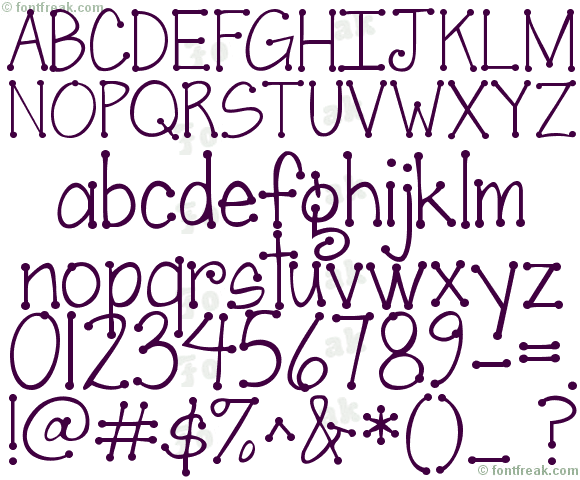
Janda Scrapgirl Dots is a whimsical, handwritten font created by Kimberly Geswein, classified as a decorative style. This unique typeface features playful dot elements that add a touch of fun and creativity to any design project. The strokes are uneven, contributing to its hand-drawn appearance, and the overall weight is light, allowing for easy readability without losing its artistic flair. The spacing between letters is generous, which enhances its legibility and gives it an airy feel, making it suitable for various applications.
This font excels in a variety of use cases, particularly in projects that seek to convey a sense of joy and informality. It is perfect for crafting charming wedding invitations, where its playful design can complement a romantic theme. Additionally, it shines in children’s book illustrations, adding a whimsical touch that engages young readers. The Janda Scrapgirl Dots font is also an excellent choice for greeting cards, especially for birthdays and celebrations, where its lively personality can help convey heartfelt messages. Small business owners can use this font to create eye-catching signage or promotional materials that stand out in a competitive market.
The target audience for Janda Scrapgirl Dots includes graphic designers, small business owners, and content creators who are looking to inject a dose of creativity into their projects. Whether you're designing for print or digital platforms, this font offers versatility and charm.
What sets the Janda Scrapgirl Dots font apart is its ability to blend playfulness with professionalism, making it a delightful choice for any project aiming to evoke happiness and creativity. For those seeking to add a touch of whimsy to their work, the Janda Scrapgirl Dots font free download provides an accessible option that doesn’t compromise on style.